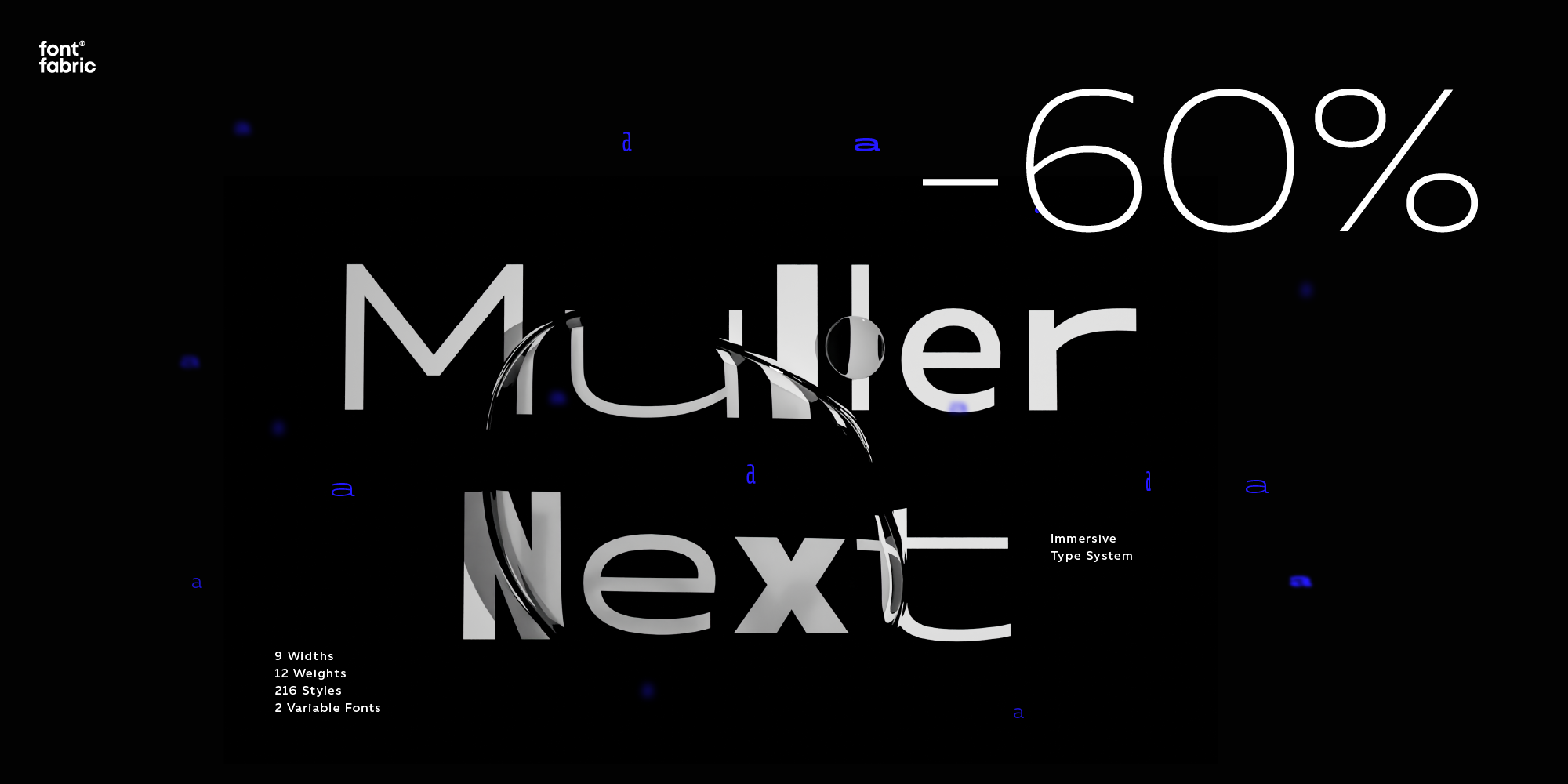
Muller Next Font is a versatile and meticulously crafted sans-serif typeface, perfect for designs that aim to convey a sense of modern clarity, sophisticated professionalism, and universal adaptability. As an enhanced and expanded version of the popular Muller font, it offers a refined and more comprehensive design, making it an excellent choice for corporate branding, editorial design for digital and print media, user interfaces (UI/UX), and packaging design. Imagine it providing sleek readability for a tech company's dashboard, adding a polished yet approachable feel to annual reports, or ensuring impeccable clarity for educational platforms. This font is also superb for apparel branding for minimalist fashion lines, signage systems, and any project where efficiency, professionalism, and a harmonious visual identity are key. It doesn't just display text; it enhances your message with a sense of innovative precision and effortless style.
What makes Muller Next Font so exciting is its remarkable ability to blend geometric precision with subtle humanistic touches, ensuring both aesthetic appeal and outstanding readability across a vast range of applications. Its extensive character set, including support for numerous languages and OpenType features, makes it a highly flexible and reliable choice for global communication. This unique combination allows designers to create visually compelling content that is highly functional and effortlessly modern. It’s a font that speaks with a clear, confident voice, making it ideal for brands and content creators who want to convey reliability, innovation, and a sophisticated, no-fuss aesthetic. Its balanced proportions and robust design make it a go-to for any project aiming for a cohesive, professional look.
The Muller Next Font family is exceptionally comprehensive, offering a vast array of weights and styles, making it a true super-family system. This extensive range provides unparalleled design flexibility and allows for nuanced typographic expressions. You can expect to find a rich array of options to support diverse layout needs, including:
Muller Next Thin
Muller Next ExtraLight
Muller Next Light
Muller Next Regular
Muller Next Medium
Muller Next Bold
Muller Next ExtraBold
Muller Next Heavy
Muller Next Black
Muller Next Ultra
Muller Next Italic (for most, if not all, weights)
Muller Next Hairline (for ultra-thin applications)
Muller Next Wide (for broader display, in various weights)
Muller Next Narrow (for condensed use, in various weights)
These numerous weights, widths, and styles, combined with features like small caps, multiple figure sets, and stylistic alternates, empower designers to create complex visual hierarchies, emphasize important information, and maintain a consistent, polished, and highly professional look throughout all digital and print assets. The opportunity to utilize Muller Next Font Free Download is an excellent way to experience its versatile elegance and modern appeal for your personal projects.